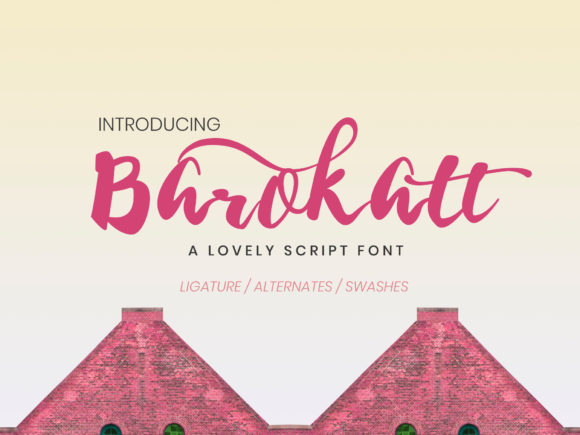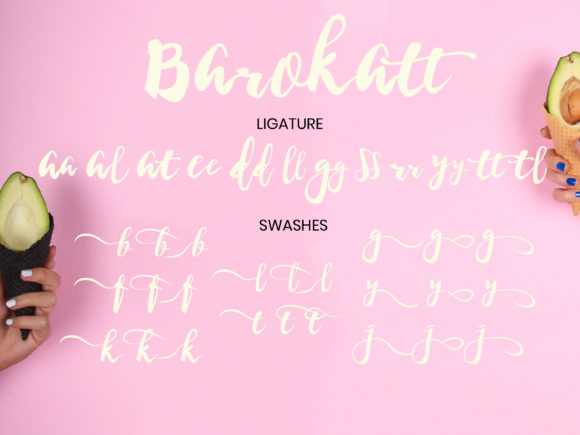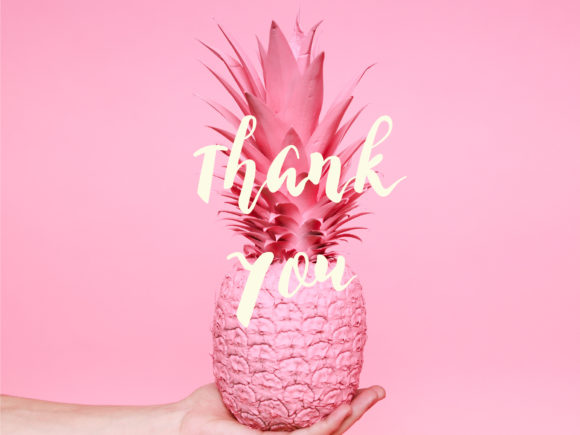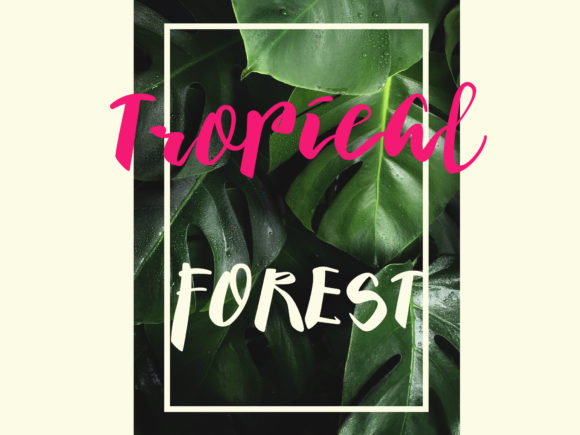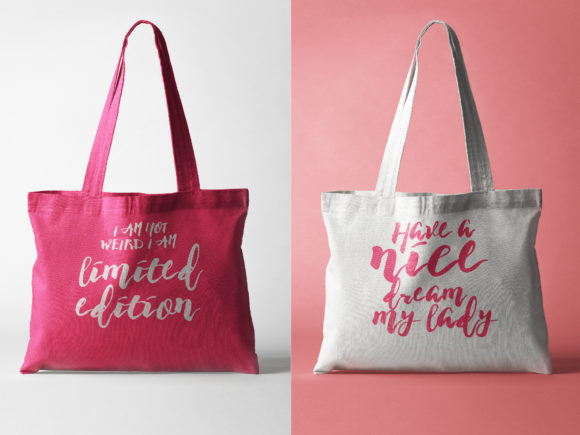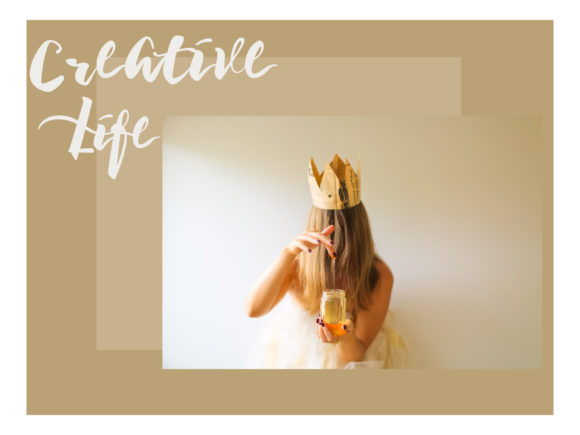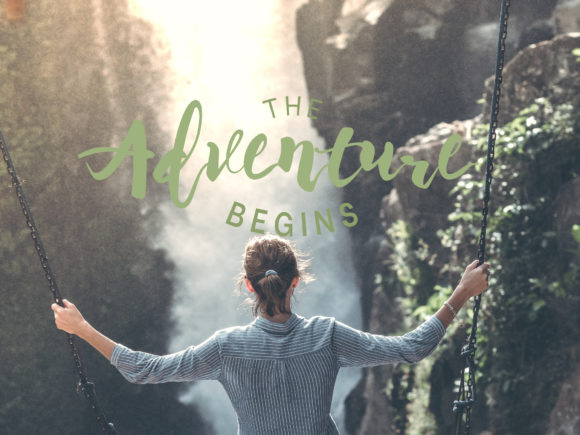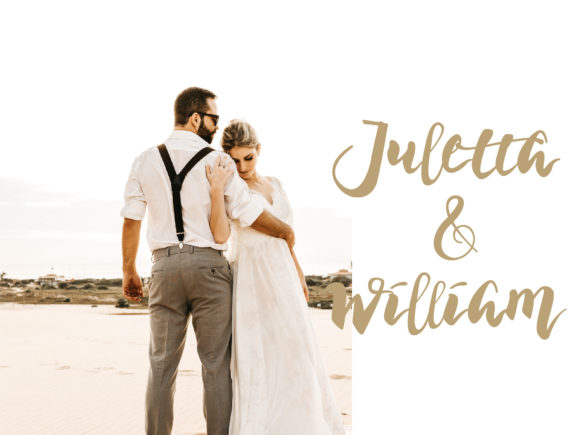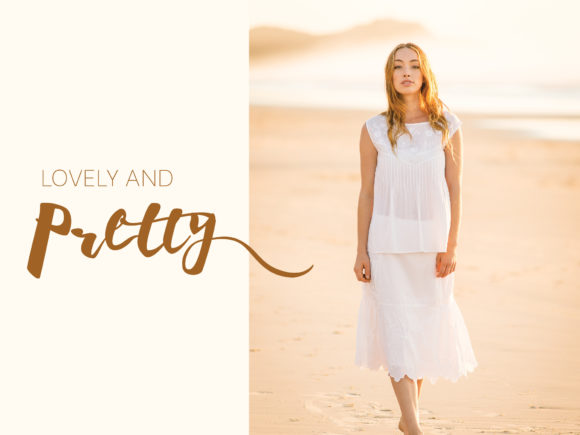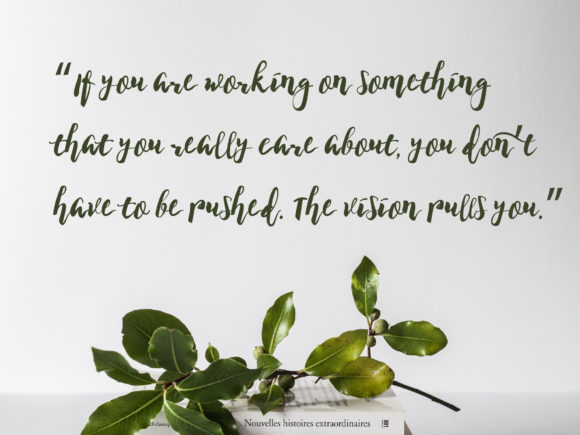
HomeScript FontsBarokatt Font Script Fonts Barokatt Font FacebookXPinterestWhatsApp Barokatt Font Poster 2 Barokatt Font Poster 3 Barokatt Font Poster 4 Barokatt Font Poster 5 Barokatt Font Poster 6 Barokatt Font Poster 7 Barokatt Font Poster 8 Barokatt Font Poster 9 Barokatt Font Poster 10 Barokatt Font Poster 11 About Barokatt Font Barokatt delivers a sweet and playful script experience. Get inspired by its bold charm! DOWNLOAD ON CREATIVE FABRICAThis font is sold and delivered by Creative Fabrica. Font Canyon may earn a commission if you buy through this link. People also explored Jerosta Font Miletray Font Milkshake Font Sambalado Font Eastchaft Font Hello Happiness Font Leilani Font The Fallen Font Joella Font 322 0 TagsBarokatt Font Previous articleCandyland FontNext articleAntique Cherry Font LEAVE A REPLY Cancel reply Comment: Please enter your comment! Name:* Please enter your name here Email:* You have entered an incorrect email address! Please enter your email address here Website: Save my name, email, and website in this browser for the next time I comment. Personal Use Free Setta Personal Use Free Read more about this font Astagina Signature Personal Use Free Read more about this font Fuixg Personal Use Free Read more about this font Gaboed Personal Use Free Read more about this font BLOG Transform Your Website: Elevate Your Typography with 7 Best Web Font Generators Are you ready to transform your website's typography from ordinary to extraordinary? Great! Today, we're diving into the world of web font generators, which... To increase your work productivity, choose the most readable fonts. How to Cut Any Font on Cricut: Convert a Font to SVG (Free) 5 Fonts That Will Dominate Design Trends in 2026